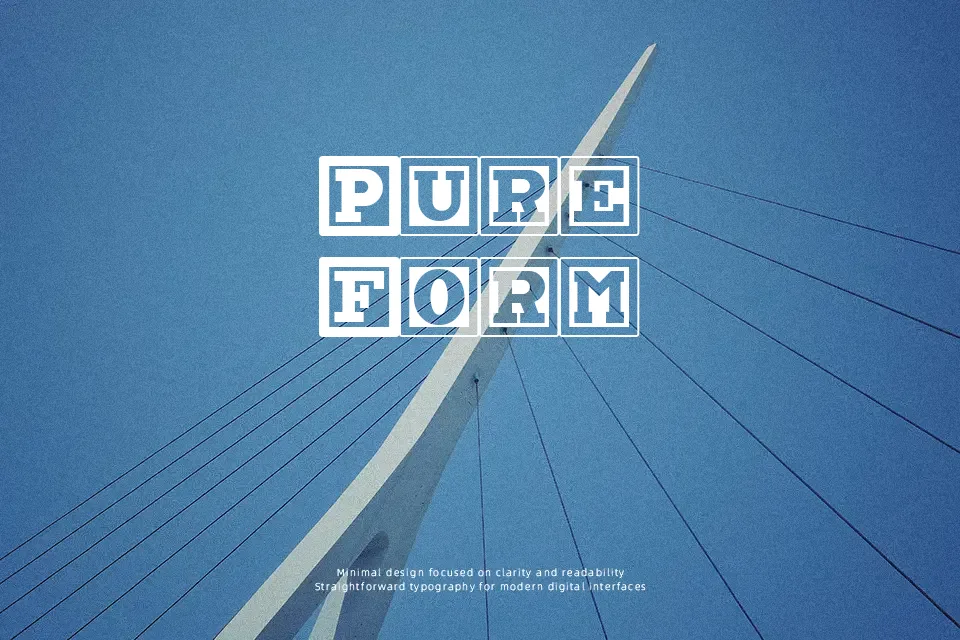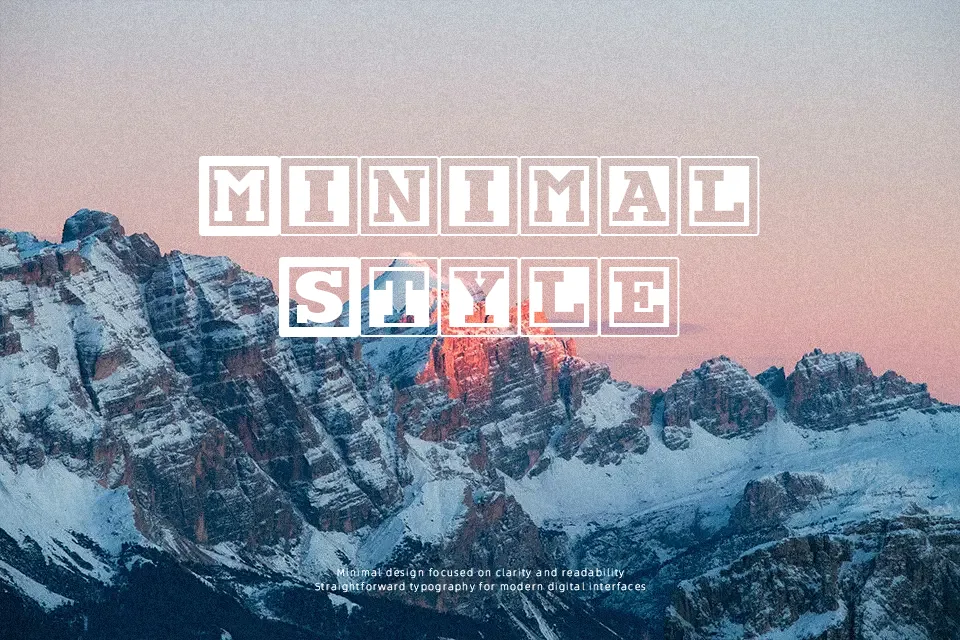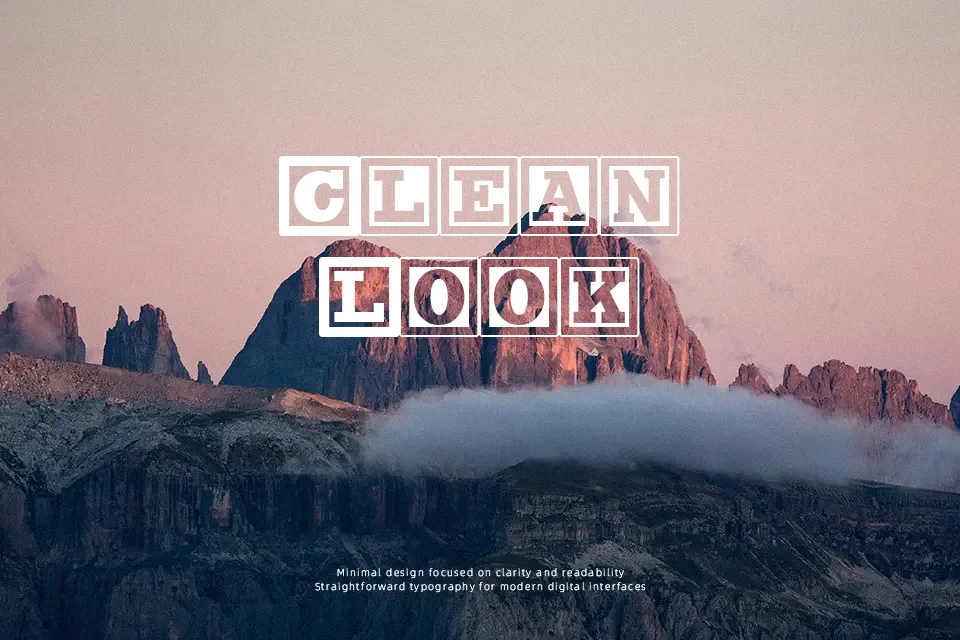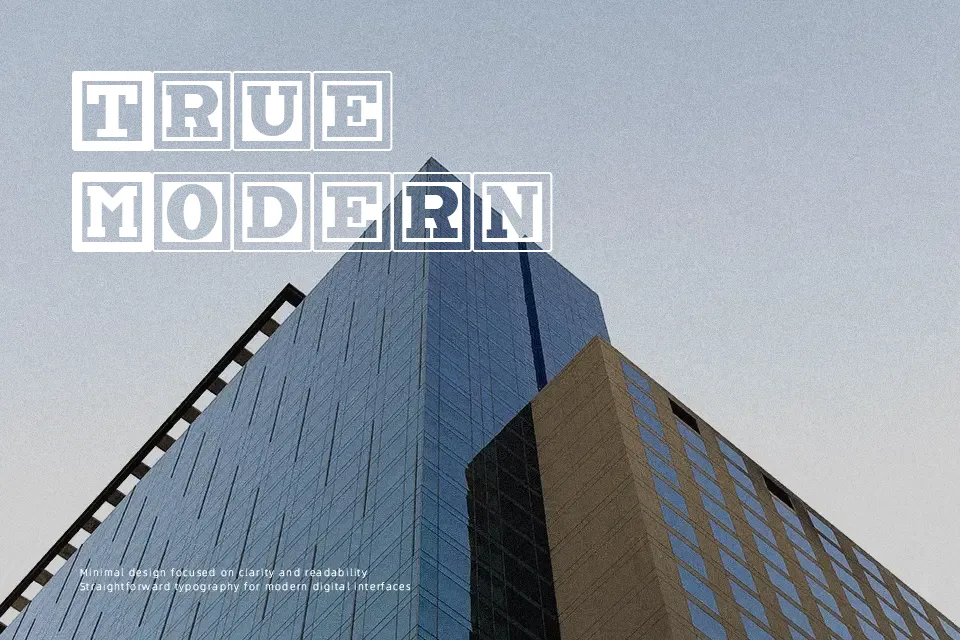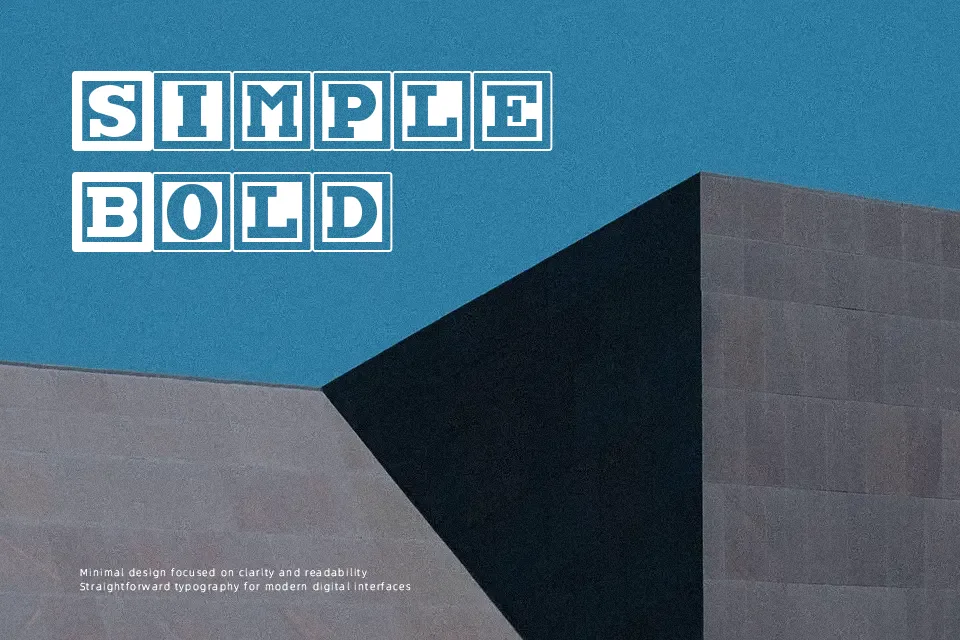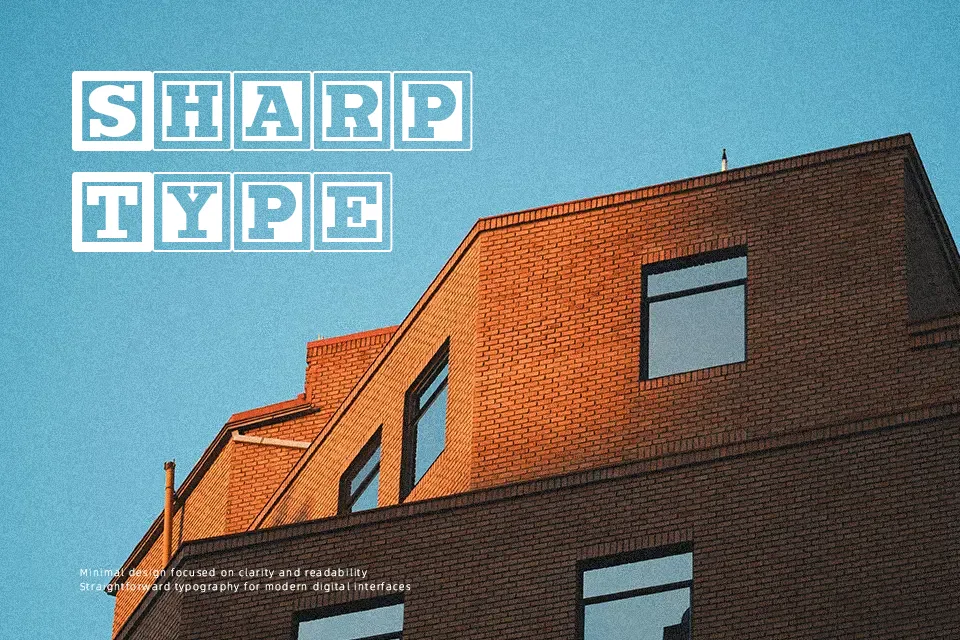
ChockABlockNF Font
ChockABlockNF Font is characterized by square framed modules that encase solid, bold letterforms with high stroke thickness and uniform proportions. The typeface features tight character spacing, where the boundary of each block establishes an emphatic horizontal rhythm across headlines. Uppercase forms dominate the presentation, providing strong visual impact for early childhood educational materials, toy branding, and festival signage. However, the heavy framing and dense internal counters significantly reduce legibility at smaller point sizes, making the letterforms unsuitable for body paragraphs and continuous editorial text. The design works most reliably when individual words remain short and display scale remains large.
Best For: children toy packaging, elementary classroom banners, retro game titles, playful event badges
Not Ideal For: continuous paragraph text, mobile interface labels, legal documentation, dense editorial layouts
Perfect for headline, kids, and logo, with a bold and decorative style.